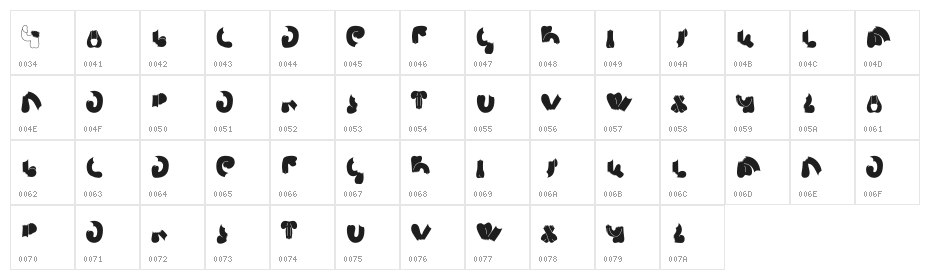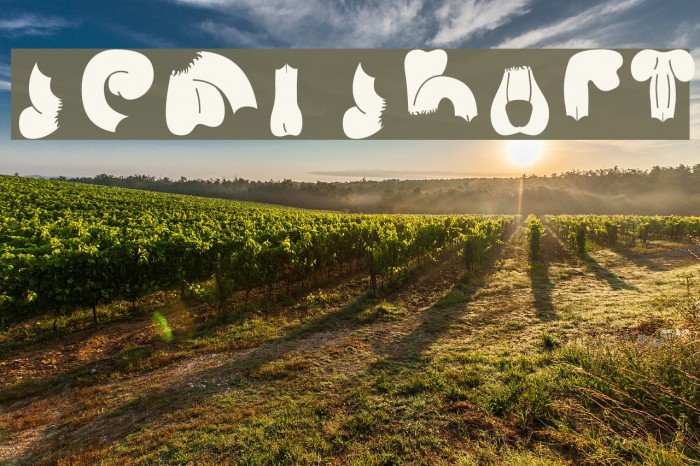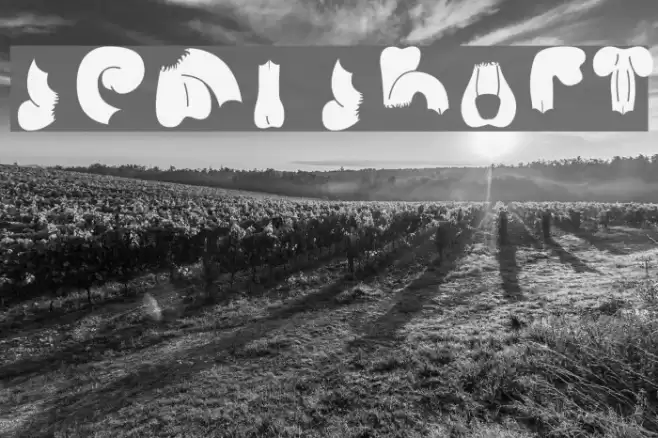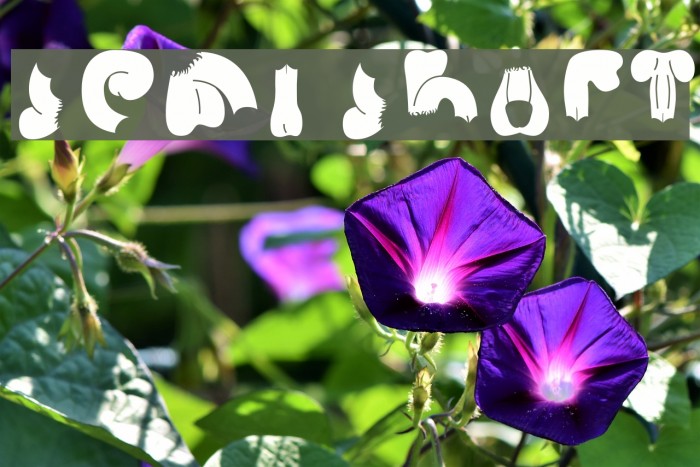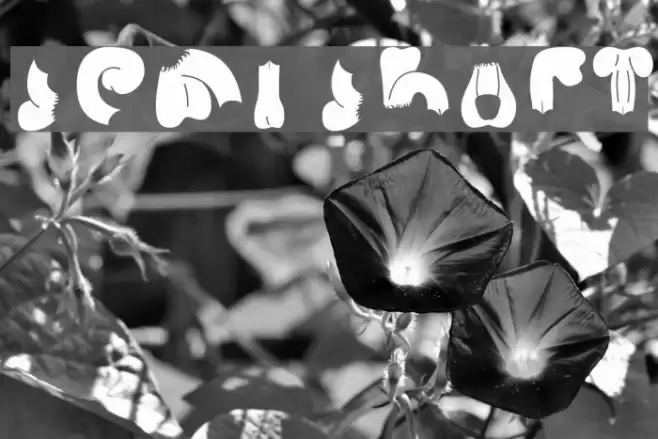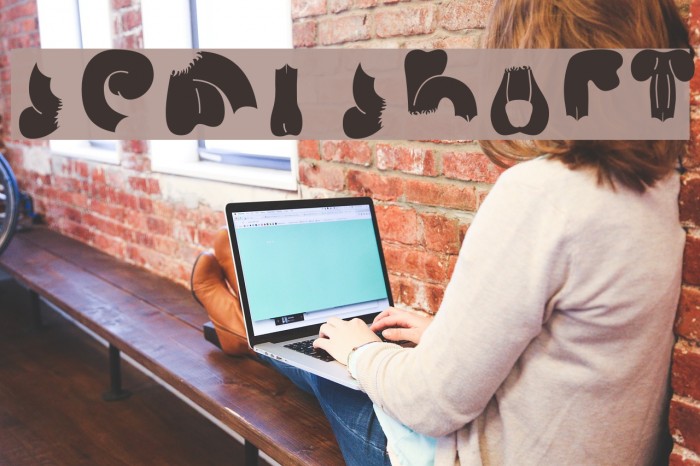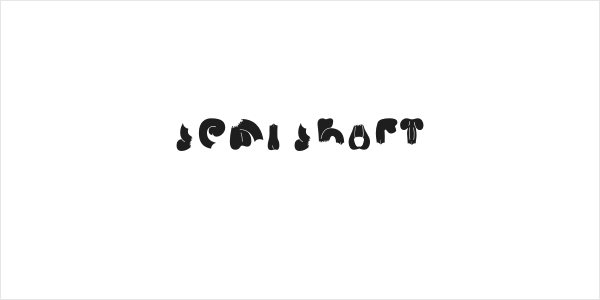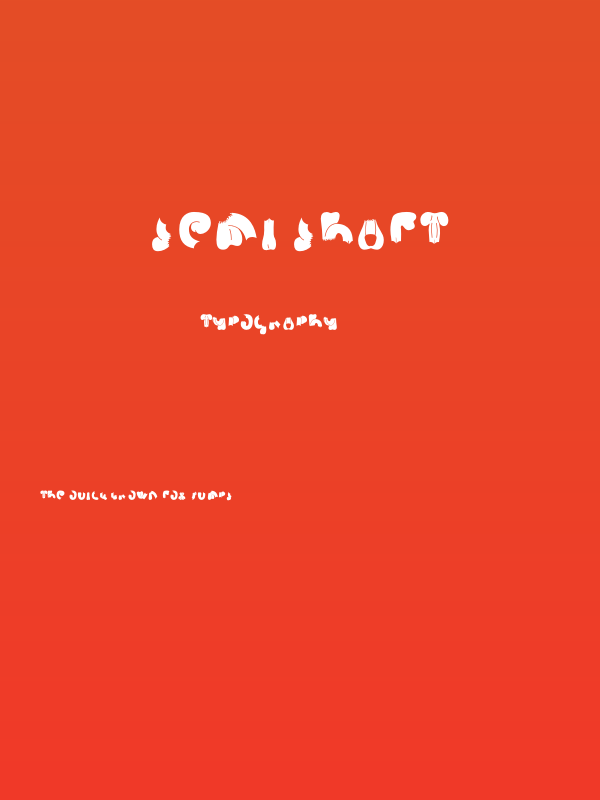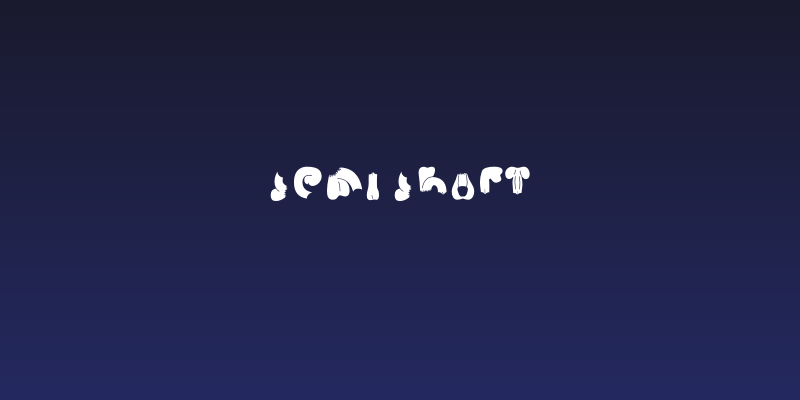
Semi Shaft Font
Semi Shaft Description
This font features a bold and playful design with exaggerated curves and unique detailing that gives each character a distinct personality. The letters are heavily stylized, incorporating whimsical elements that resemble brush strokes or abstract shapes. The uppercase and lowercase letters maintain a consistent style, creating a cohesive look. The numbers and special characters follow the same artistic approach, ensuring uniformity across all glyphs. This font is ideal for projects that require a fun and eye-catching aesthetic.
| Proposed Projects | Perfect for children's book covers, playful branding, creative posters, and artistic invitations. |